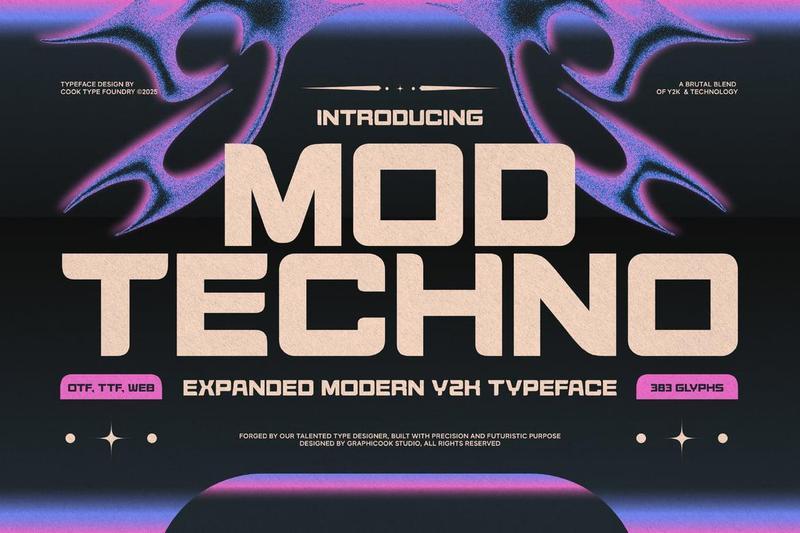
**Modtechno** is an experimental font with bold, firm letterforms, presented in a modern futuristic style. It’s ideal for cyberpunk-themed designs or technology branding.
**Modtechno** is perfect for headlines, logotypes, magazines, packaging, quotes, movies, games, cover albums, book covers, and flyers, it’s a perfect solution for creating eye-catching designs that stand out in any context.